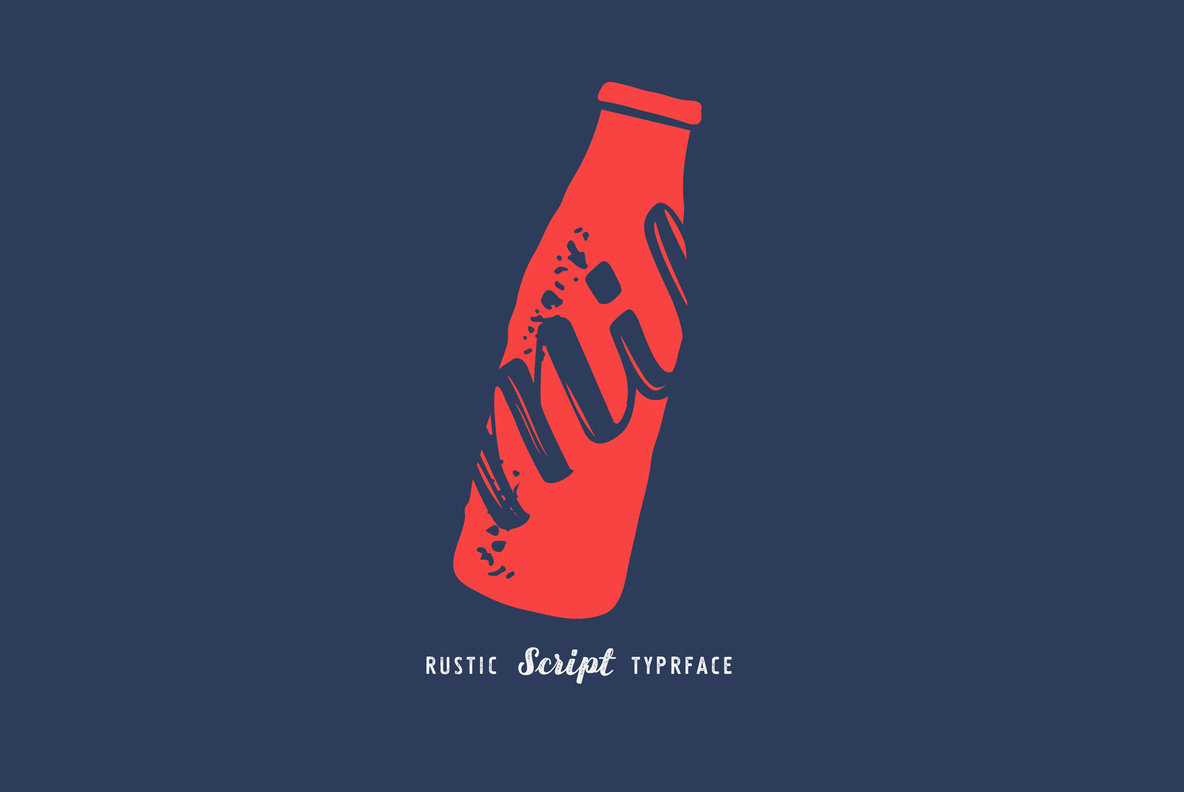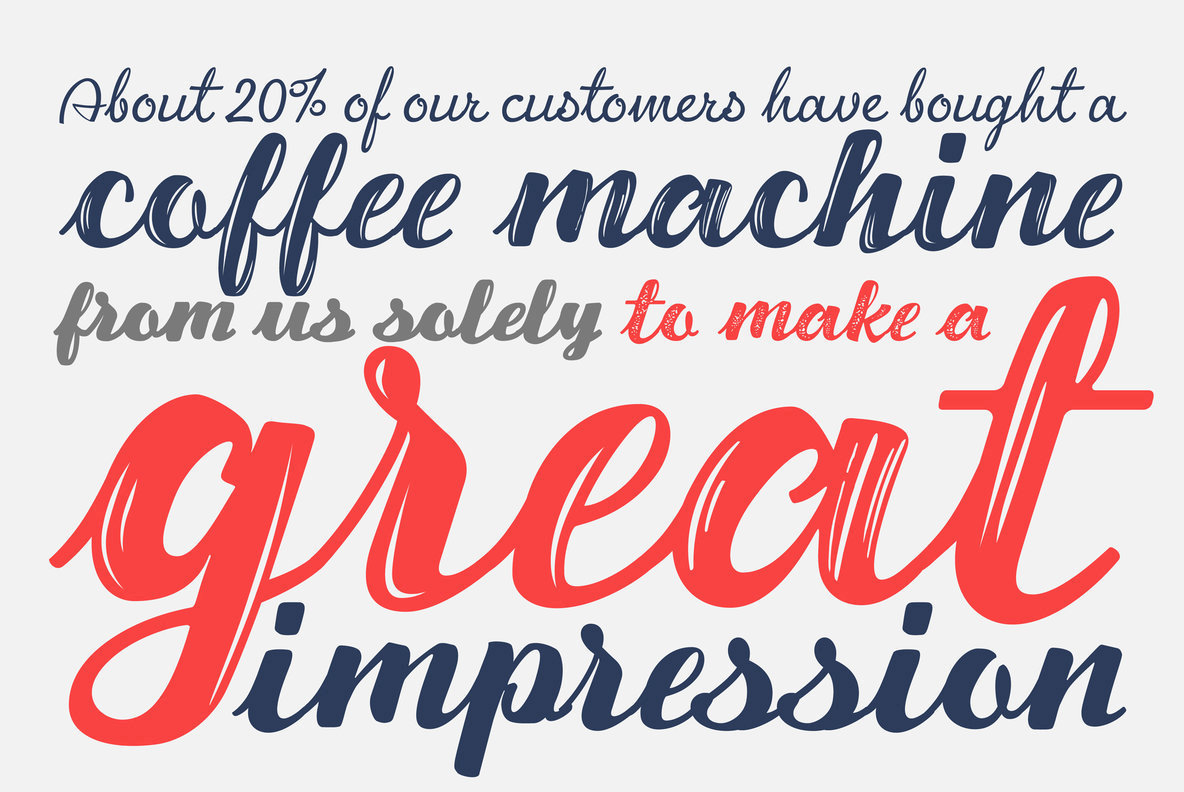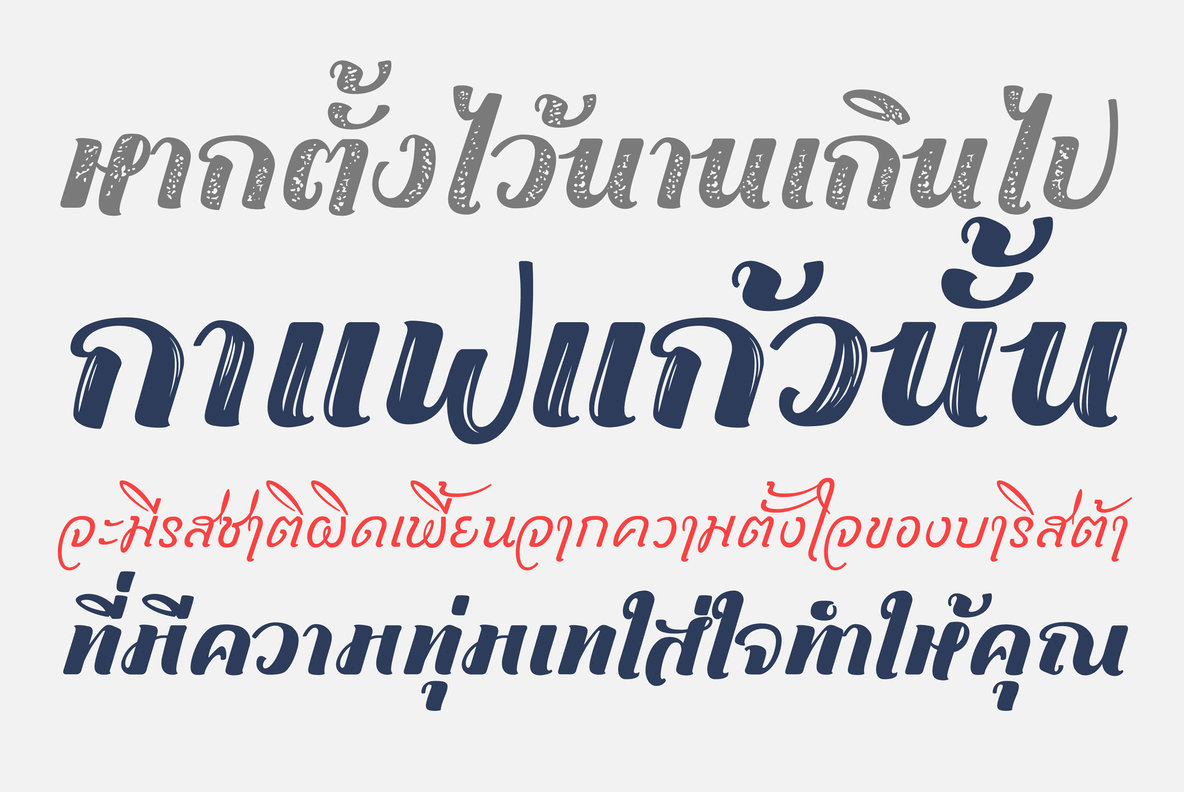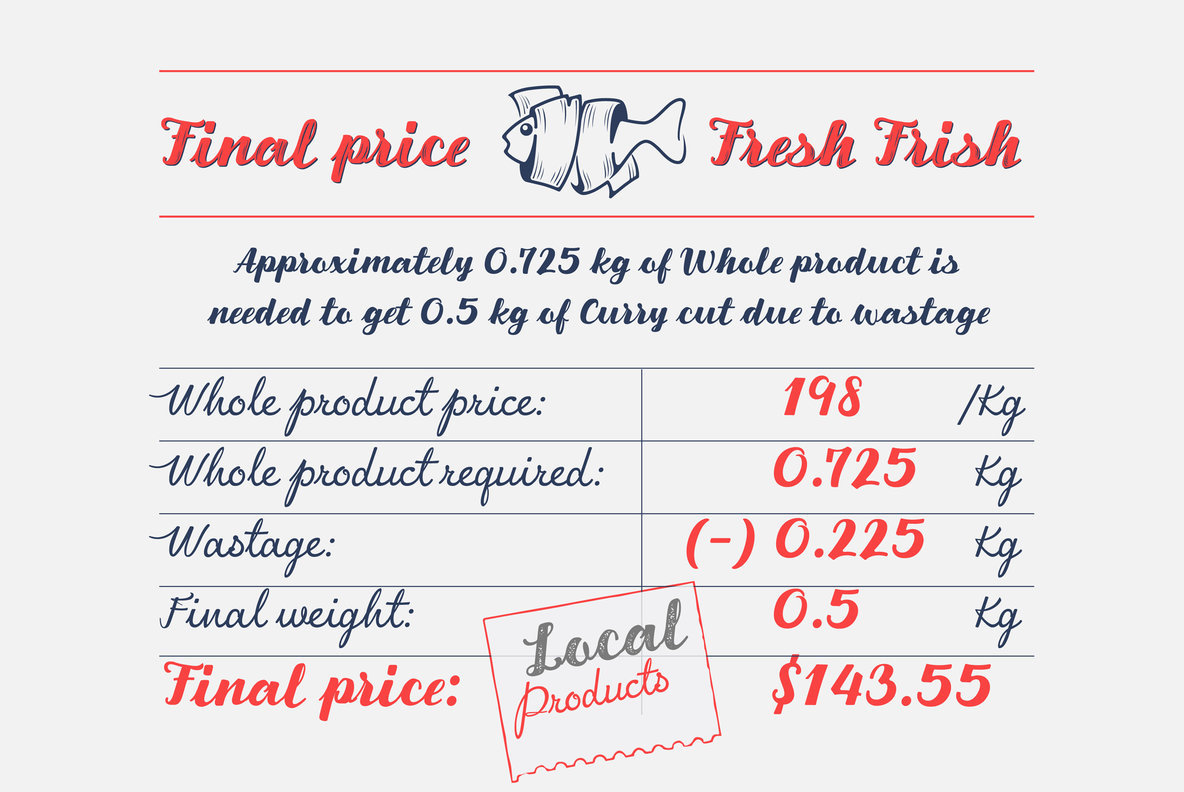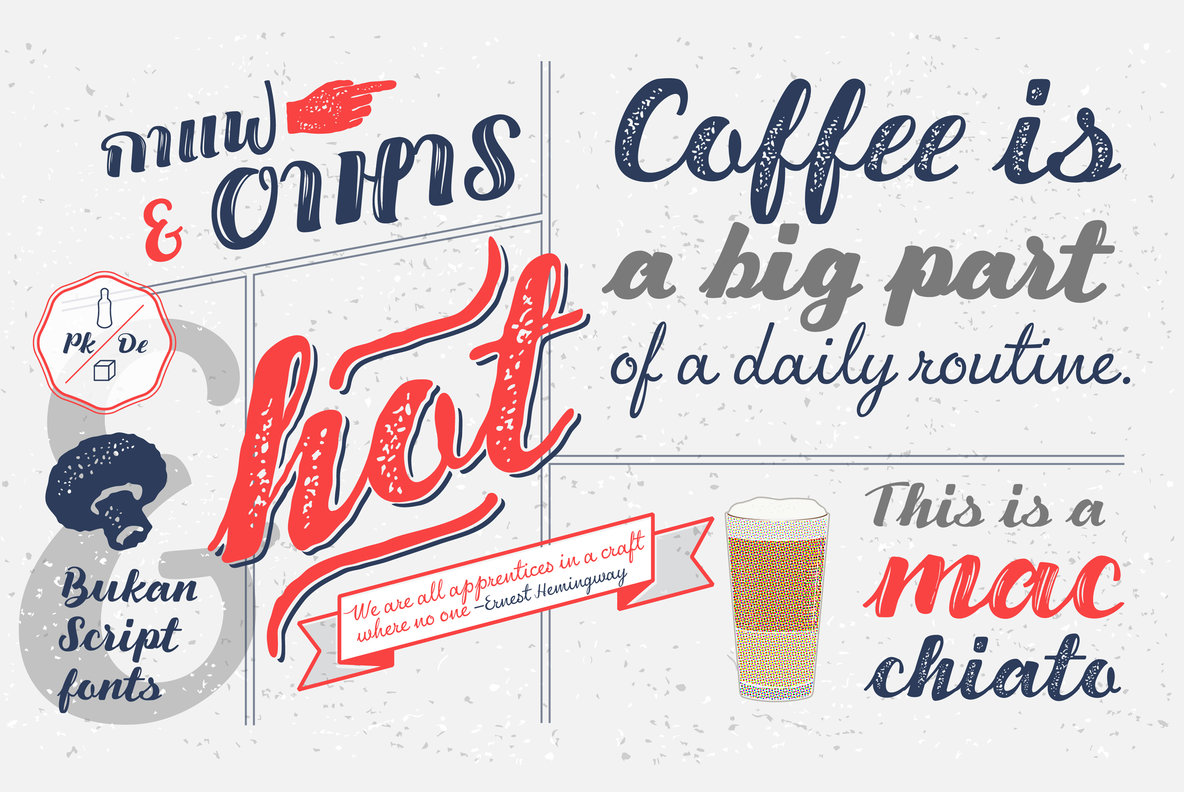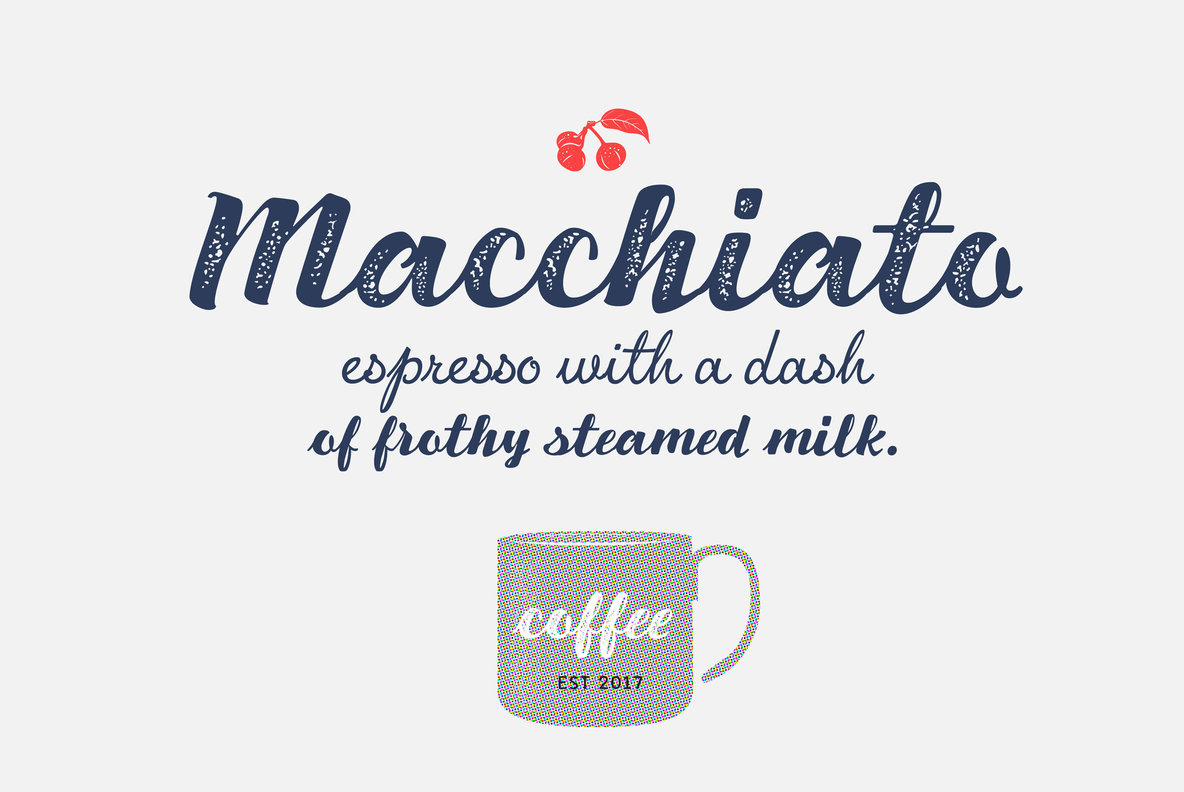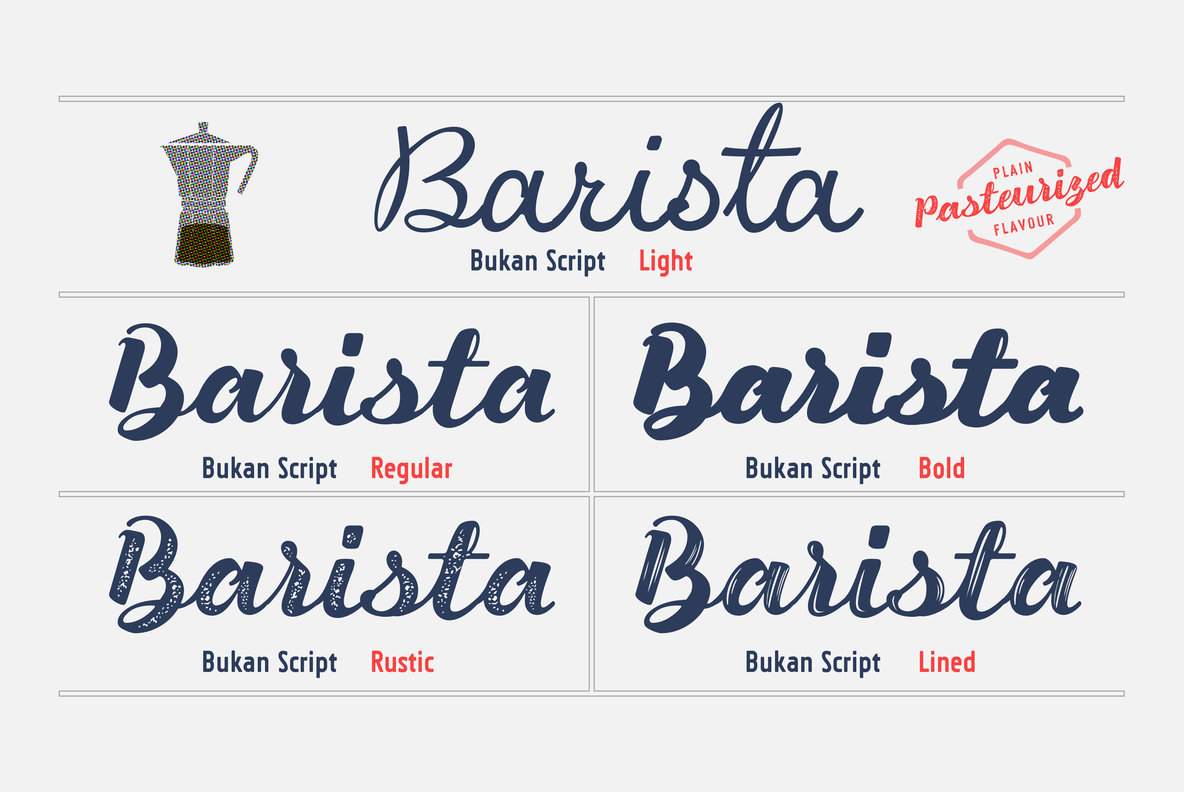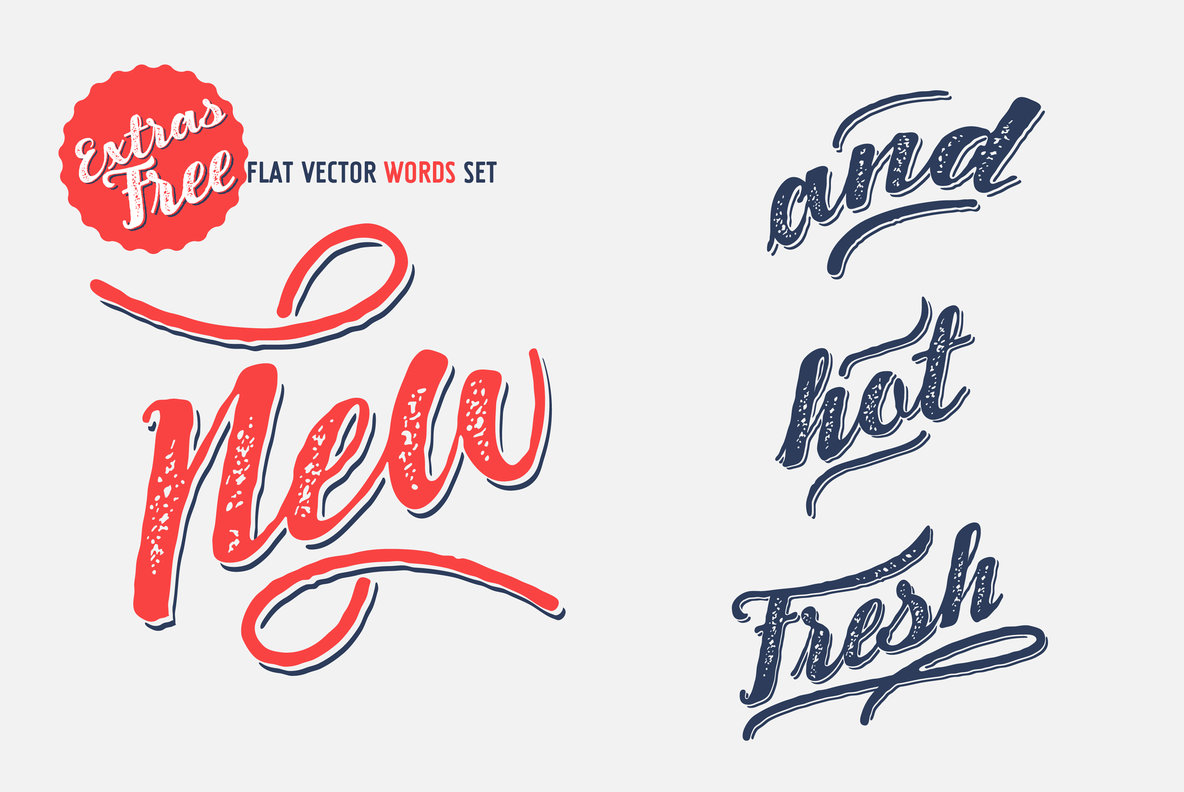
Bukan Script is a script design crafted with passion and love to create a charming brush feeling. The character of the font is a bold/clean/vintage/grunge style font set. Bukan Script has its own explicit charisma; perfect for branding, advertising, food Industry, apparel design, labels, etc.